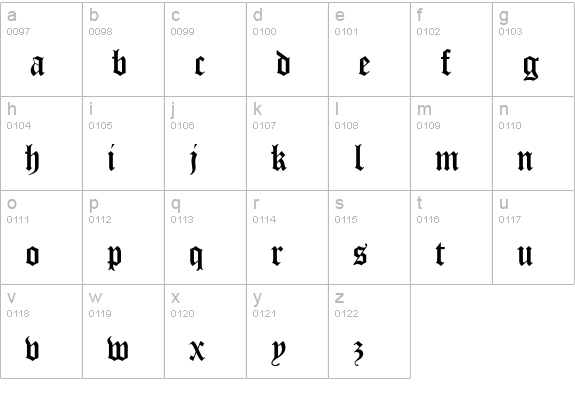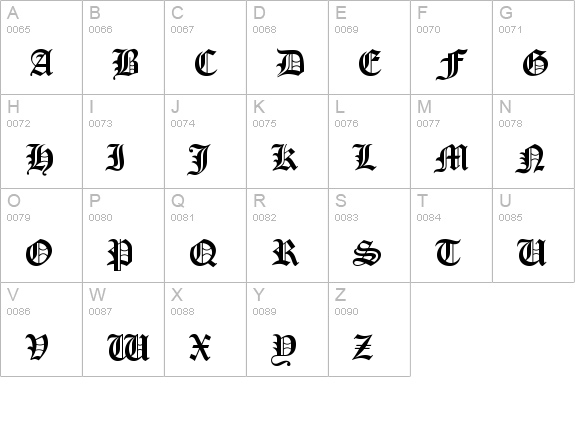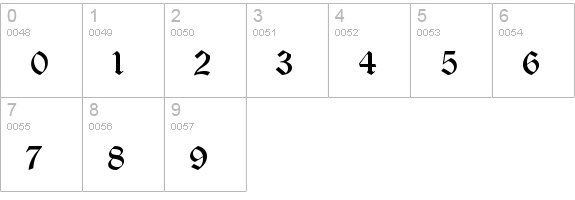
Cloister Black Font Details
Cloister Black is a maximum-weight, dramatic variant in the Cloister typeface family \xE2\x80\x94 well suited to maximum-impact headlines, posters, and packaging.
Cloister Black is a striking and elegant font that exudes a sense of sophistication and timelessness. Its intricate and ornate letterforms make it perfect for creating designs that require a touch of class and refinement. Whether you are working on invitations, stationery, or branding materials, Cloister Black will add a touch of elegance to your projects. The best part is that Cloister Black is available for free download at FontsMarket.com. This means that you can access this beautiful font without any cost, making it a valuable addition to your design toolkit. With its classic charm and versatility, Cloister Black is sure to elevate your designs and leave a lasting impression on your audience. Download it today and add a touch of sophistication to your projects!